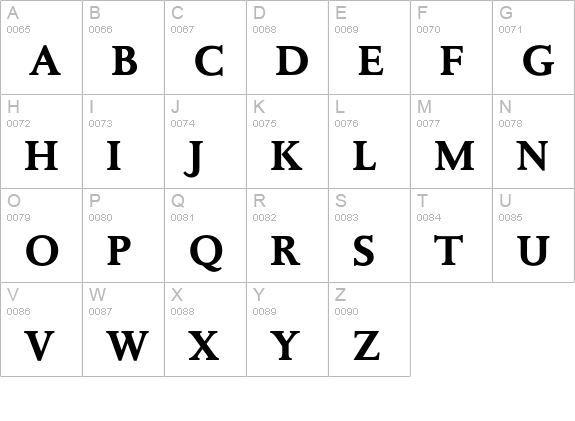
Palermo-DemiBold is a sub-bold, structured variant in the Palermo typeface family \xE2\x80\x94 well suited to sub-headlines and emphasised passages.
Introducing the stunning Palermo-DemiBold font, a true masterpiece that effortlessly combines elegance and versatility. This font is perfect for those seeking a touch of sophistication in their designs, whether it be for logos, titles, or any other creative project. With its bold and commanding presence, Palermo-DemiBold exudes a sense of confidence and authority. Its carefully crafted letterforms are meticulously designed to captivate and engage the audience, making it an ideal choice for both print and digital mediums. Featuring a harmonious balance of thick and thin strokes, Palermo-DemiBold gracefully showcases its versatility by seamlessly adapting to various design styles, from modern and sleek to classic and timeless. Its clean and crisp lines ensure legibility even at small sizes, while its distinct character adds a touch of uniqueness to any composition. What's even more remarkable is that Palermo-DemiBold is available for free download exclusively at FontsMarket.com. Yes, you heard it right - this extraordinary font can be yours without spending a dime. FontsMarket.com is proud to offer this exceptional typeface to designers and creatives worldwide, ensuring accessibility and the freedom to bring your visions to life. Don't miss out on the opportunity to elevate your designs with Palermo-DemiBold. Download it today and experience the beauty and power of this remarkable font. Let Palermo-DemiBold be your creative companion, guiding you through the world of design with its unmatched elegance and versatility.